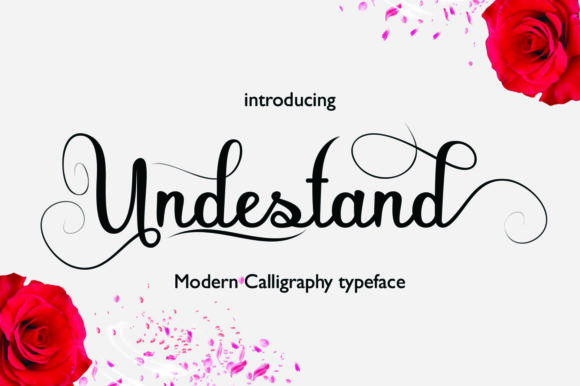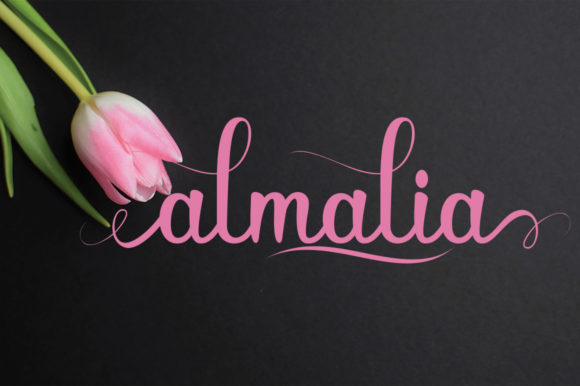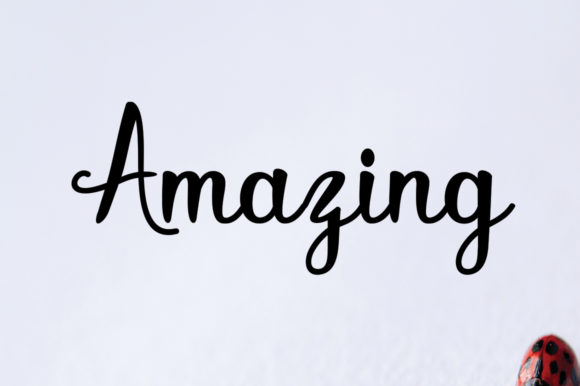
HomeScript FontsUndestand Font Script Fonts Undestand Font FacebookXPinterestWhatsApp Undestand Font Poster 2 Undestand Font Poster 3 Undestand Font Poster 4 Undestand Font Poster 5 About Undestand Font Undestand is a striking script, full of energy and charm. It will turn any design idea into a true eye catcher! DOWNLOAD ON CREATIVE FABRICAThis font is sold and delivered by Creative Fabrica. Font Canyon may earn a commission if you buy through this link. People also explored Prestorm Font Malikon Font Handcraft Font Kolas Gepolar Font Offside Font Soccer Mom Font Moline Font Belove Font Trigger Happy Font 301 0 TagsUndestand Font Previous articleJodie Garland Script FontNext articleJohnson Rock Font LEAVE A REPLY Cancel reply Comment: Please enter your comment! Name:* Please enter your name here Email:* You have entered an incorrect email address! Please enter your email address here Website: Save my name, email, and website in this browser for the next time I comment. Personal Use Free Green Farmhouse Personal Use Free Read more about this font Anjhay Personal Use Free Read more about this font Rise of Kingdom Personal Use Free Read more about this font Jurnal Personal Use Free Read more about this font BLOG How to Install and Use Fonts on Windows, macOS, and Web Projects How to Install and Use Fonts on Windows, macOS, and Web Projects Fonts are a crucial part of design and branding. Whether you’re designing a... How to Cut Any Font on Cricut: Convert a Font to SVG (Free) Best Fonts for YouTube Videos: Make Your Thumbnails Stand Out Fonts That Capture the Spirit of New York City